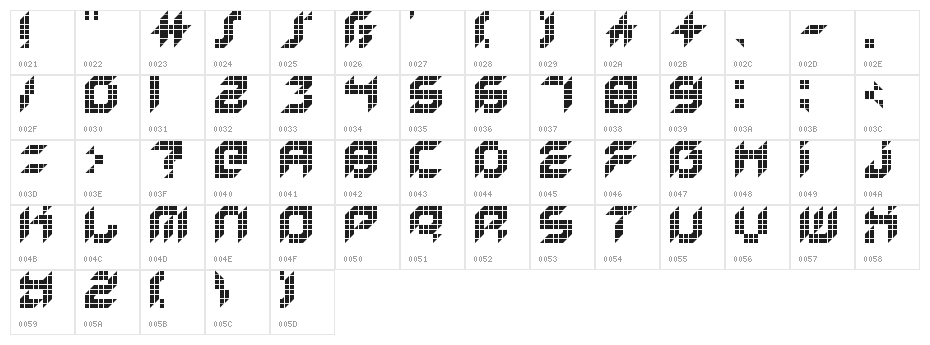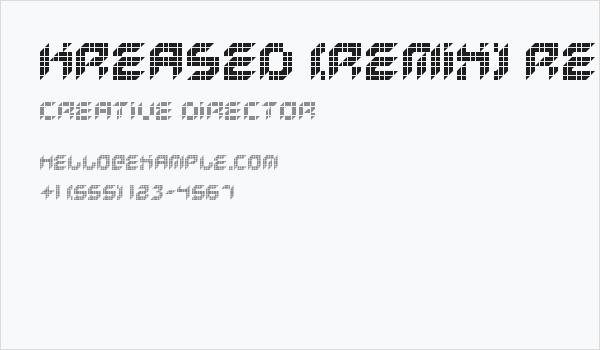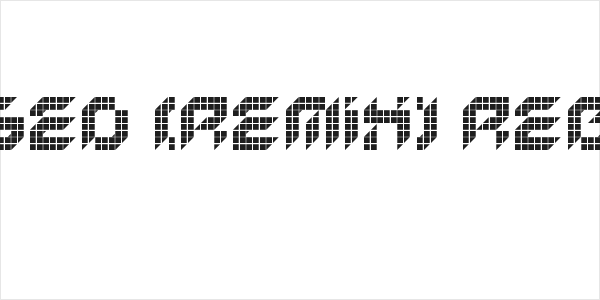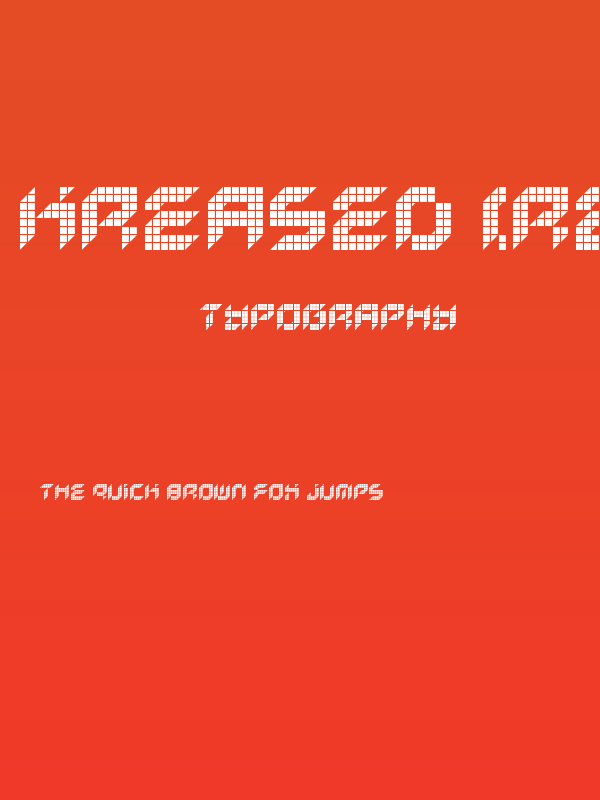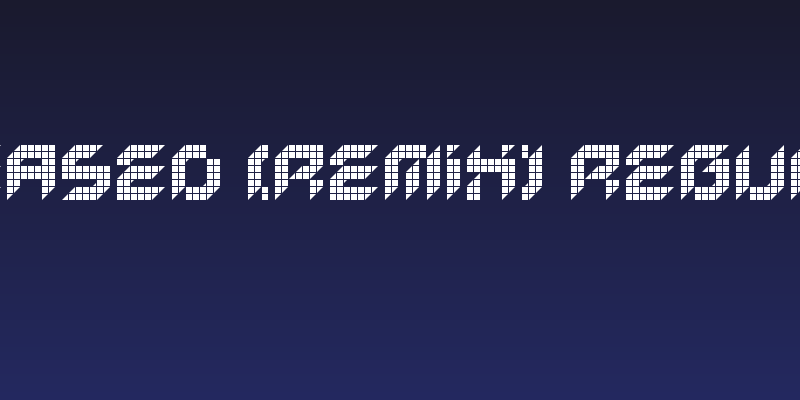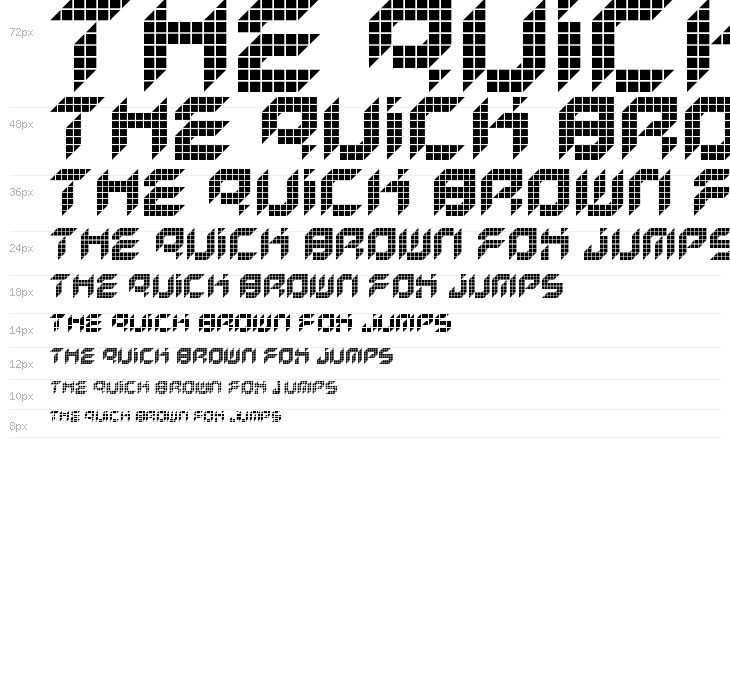
Kreased [Remix] Regular Font
Kreased [Remix] Regular Description
This font features a unique, pixelated design that gives it a digital and futuristic appearance. Each character is constructed from a grid of small squares, creating a blocky and geometric look. The style is reminiscent of early digital displays or retro video games, making it ideal for projects that require a tech-savvy or nostalgic feel. The characters are bold and distinct, ensuring readability despite the unconventional design. The font maintains a consistent structure across both uppercase and lowercase letters, as well as numbers and special characters, providing a cohesive and uniform appearance.